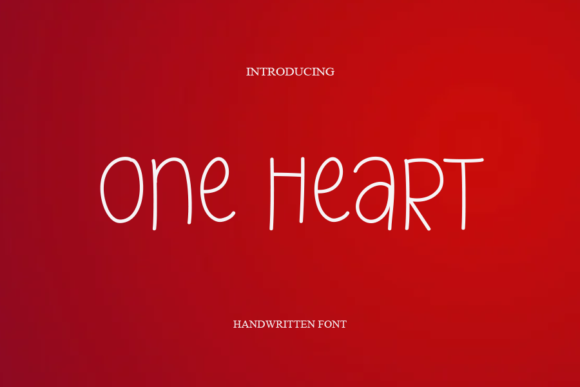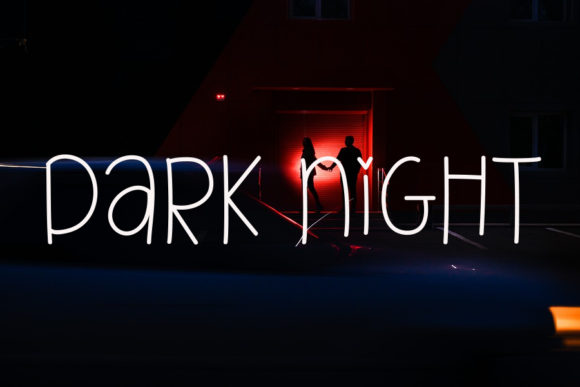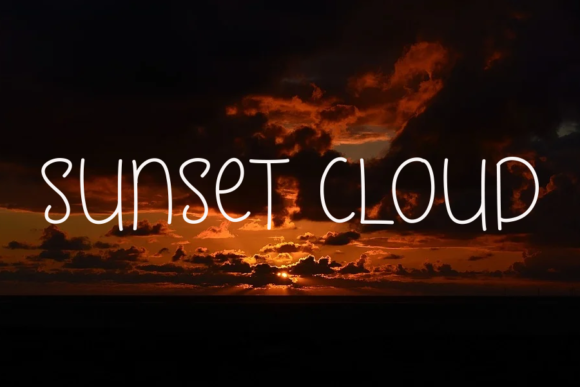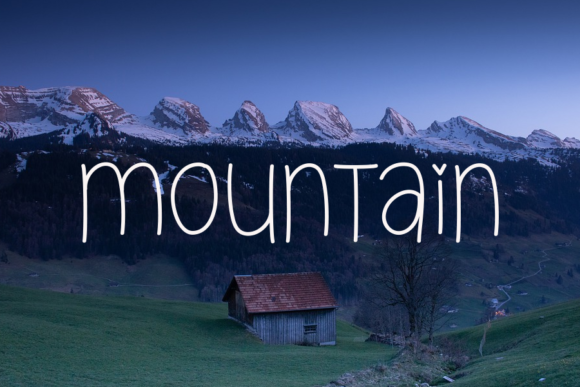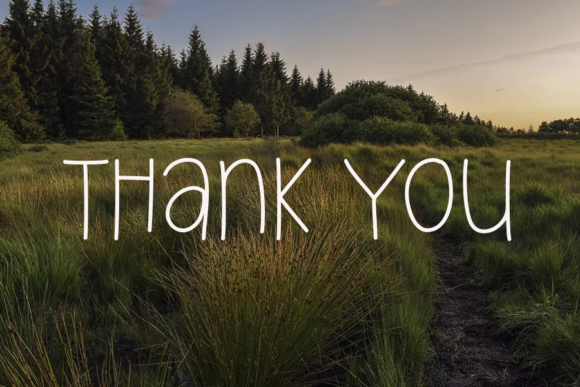
One Heart Font
About One Heart Font
One Heart is a thin and simple handwritten font. Use this font for with your designs and explore its endless possibilities.